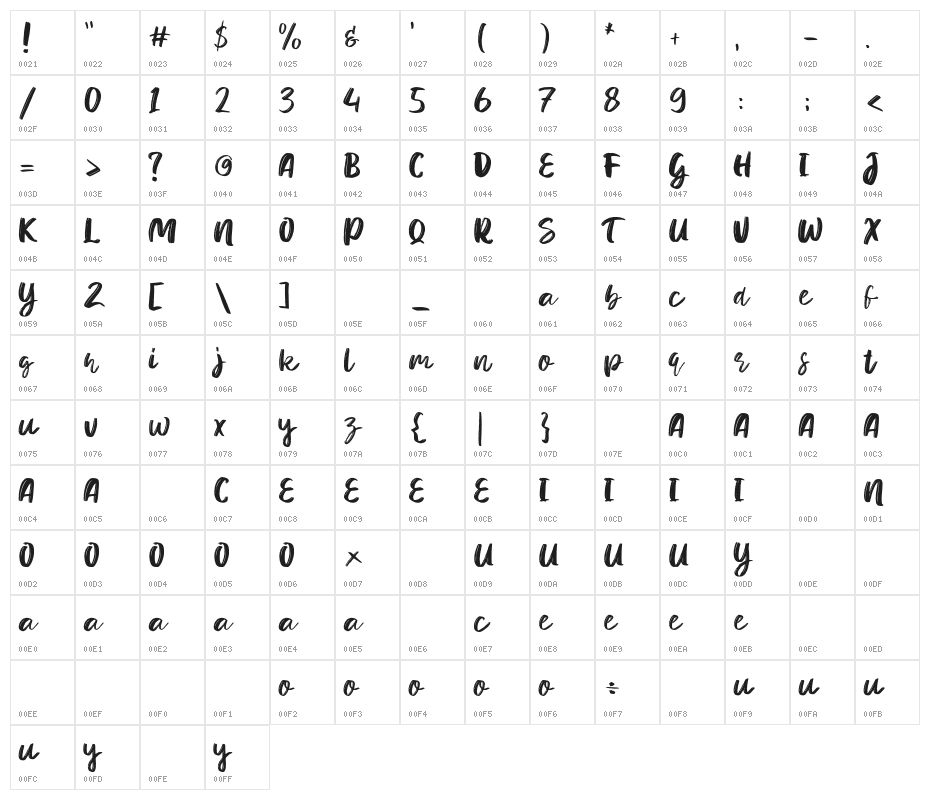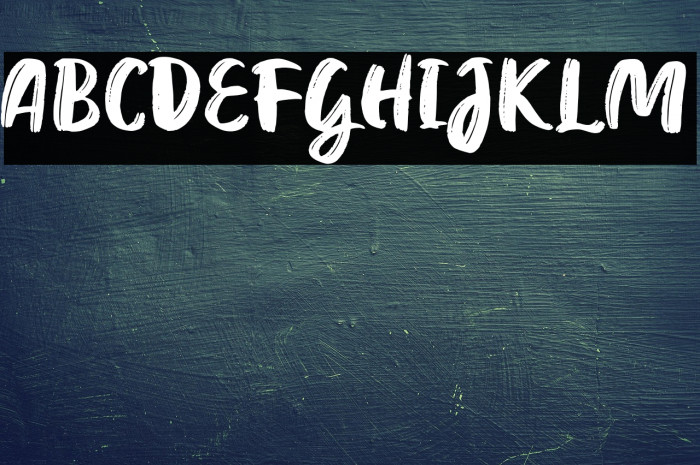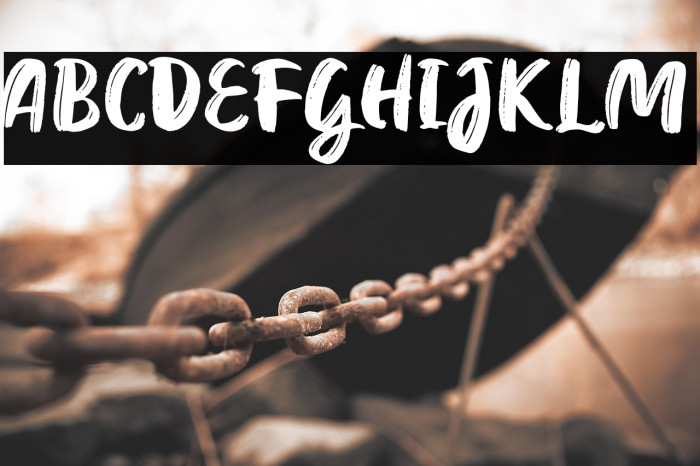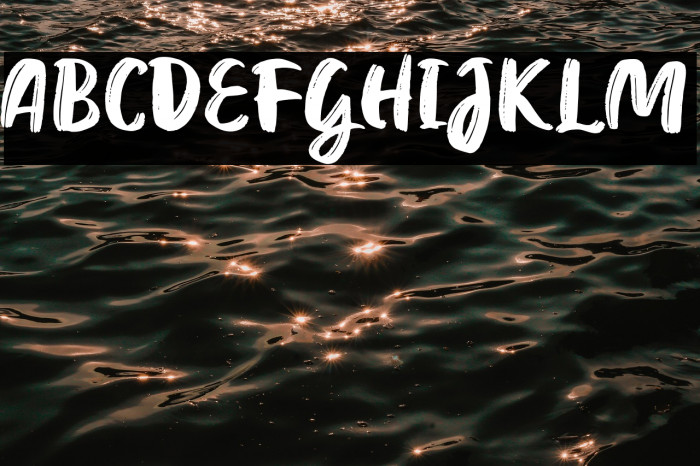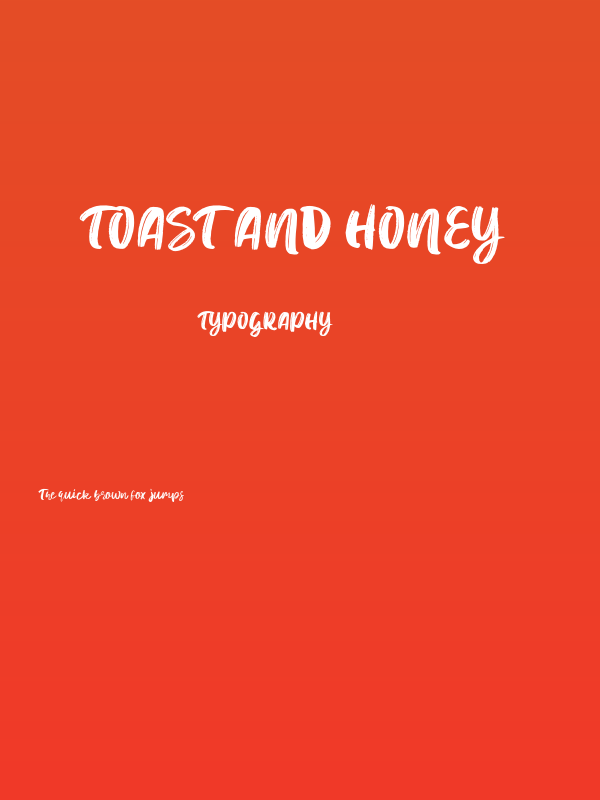
Toast and Honey Font
Toast and Honey Description
This font features a bold, handwritten style with a playful and energetic feel. The letters are characterized by their thick, brush-like strokes, giving them a textured and dynamic appearance. The uppercase and lowercase letters maintain a consistent style, with rounded edges and a slightly slanted orientation, adding to the casual and informal vibe. The numbers and special characters are equally expressive, maintaining the same brushstroke aesthetic. This font's overall look is both artistic and approachable, making it suitable for a variety of creative applications.